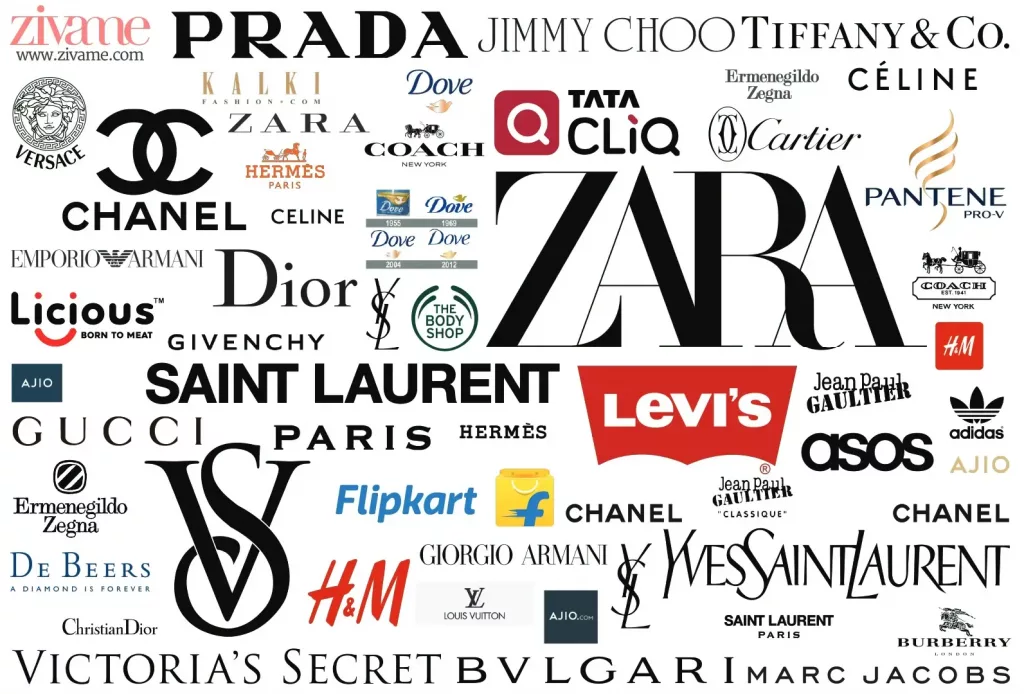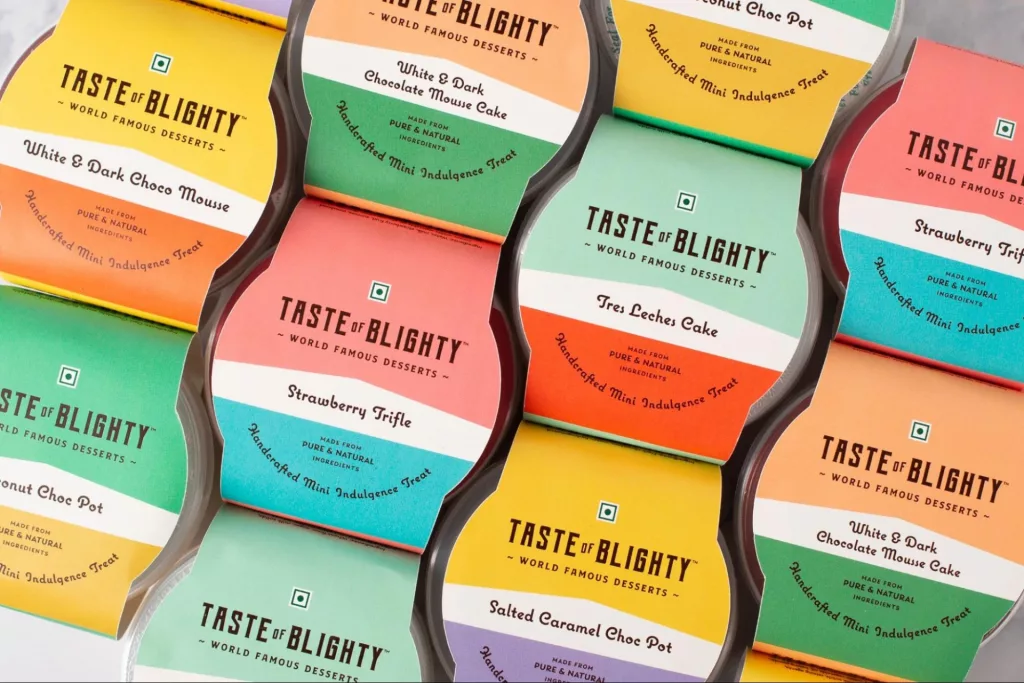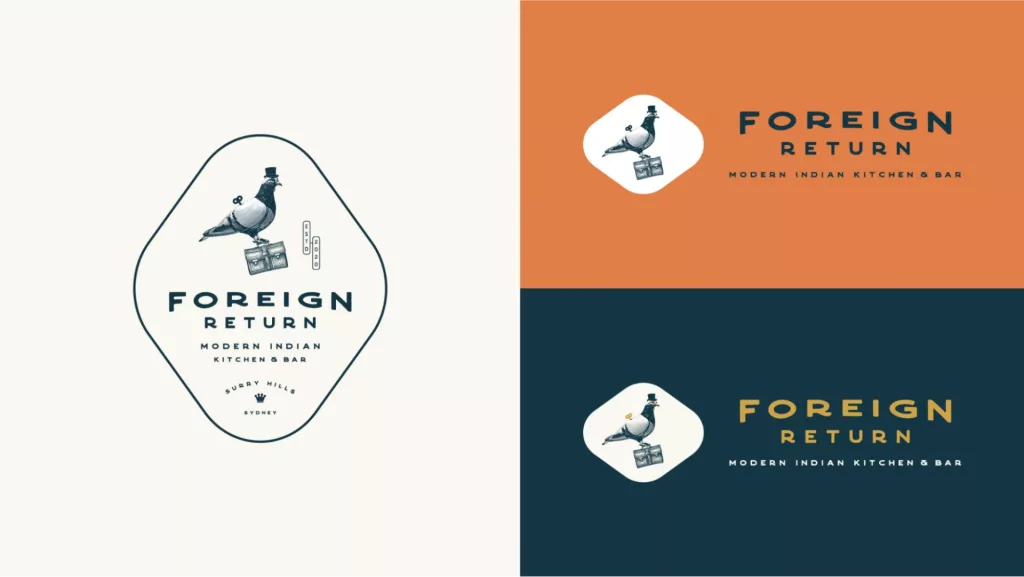
A brief hits your inbox and 3 hours go by just in downloading and trying out new fonts. Another 3 hours go by, and you’re still not happy with the results. Another 3, and you’re attempting to recreate references somebody forwarded you. End result: you’re emotionally drained, your head hurts, and you don’t want to see another typeface for the rest of your life. Next day, you’re back to the drawing board.
How often have we spent an entire day just trying out different fonts on the ‘Thank you’ slide of a PowerPoint or a blank artboard on Adobe Illustrator? When endless possibilities meet lack of clarity, one is bound to go down a rabbit hole. So how do you decide which typeface or font family to proceed with? Here’s a checklist.
This may seem like a no-brainer, but you’d be surprised at how many creative professionals go straight to the artboard without attempting to understand the brief.
“The key to choosing the right font for any logo or packaging depends a lot on the story the brand wants to tell,” says Norma Rodricks, Design Head at The Republic - a design agency based in Mumbai. “It is essential that a customer understands the nature of the brand through the typeface. It subtly tells the customer what to expect from it,” she adds.
Ayushi Teotia, Product Designer at Condé Nast agrees. “The first and foremost step for me is to reflect on the brief, understand the target person, the brand persona and lastly how experimental the client is,” she says.
So, what really is the brief? Well, it is a note that encapsulates a brand’s expectations. This includes the objective of the assignment, the target audience, the competitors, the single minded proposition, a unique consumer insight, product category and features and price point. It also includes details about the brand personality. For example, what are the values it stands for? Is it an upbeat, “quirky” brand, or is it a sombre, heritage one? Is it mass, premium or luxury? Is it aspirational or relatable? What should a consumer feel about the brand on seeing the communication? And so on.
There are generally two typefaces you need to narrow down in every branding assignment. One is the logo font. The other is the brand font. Typically, these are different. When designing the identity of a new brand, you need to also keep in mind the applications. These include the font on physical objects like flyers, posters, print ads and packaging, as well as digital assets like the website, app, social media platforms and web banners. These collaterals will often be mentioned in the brief. For example, a restaurant brief will have coasters, placemats and menu as part of their deliverables, while a tech platform will have its app and website as the primary assets.
Keep in mind that sans serif typefaces are preferred for body copy on digital mediums, while serif is preferred for body copy in print. For short headlines you can switch things up a bit, and for single word headers, you can afford to go a little decorative.
While this may seem similar to the first step, it deserves significant attention. You are right in deducing that details about the brand will be a part of the brief. But, you must spend an equal amount of time focusing on just the brand.
“One has to put in a little research and thought to the brand; is it modern, traditional, pop or classic? It is extremely important to understand the brand and the client before you begin any design process and pick a typeface that becomes the brand face,” explains Norma.
Understanding the brand includes delving into the category as well as the persona it wants to channel. For example, Dove is a personal care brand. The messaging focuses on ‘Real Beauty’. The values it personifies include inclusivity, diversity and self-acceptance.
When the brand first launched, it focussed on purity and gentleness, borrowing from its formulation. Echoing these values, they chose the colours blue, white and gold. Over time, the meaning transcended into real-world values. They personified purity and hammered down on the message - we don't need to alter ourselves to be beautiful. We simply need to be at peace with the purest versions of ourselves and embrace it.
Clearly, there’s a lot of storytelling behind the brands we see and love. To create an iconic brand, one simply does not wake up one day, and plaster a random font that looks good.
Providing a list of competitors in the relevant segment is ideally the responsibility of the brand or client. But as a designer, you must do research of your own and analyse their design language. What colours and fonts are dominant in the category? Are they using serifs or sans serifs? How successful have they been in striking a chord with the audience? Once you understand the market, you will be in a good position to find a need gap and create a unique design differentiation for your brand.
A differentiation doesn’t necessarily mean flouting the rules of the category and going completely berserk in font selection. For instance, serif typefaces are a mainstay for many iconic luxury houses. Look at the logos and typefaces used by Dior, Rolex, Gucci, Louis Vuitton or Prada. They’re classic serifs. Legendary publications like Vogue, Elle, Business of Fashion and Harper’s also go with serif typefaces.